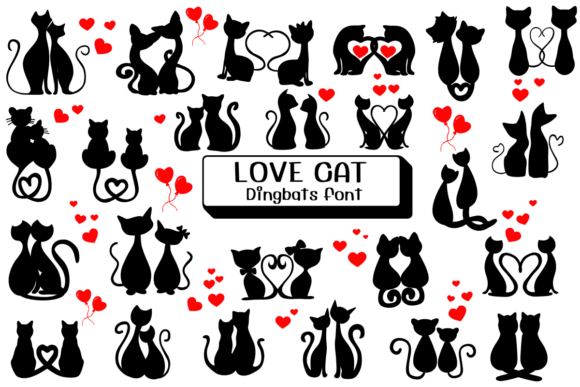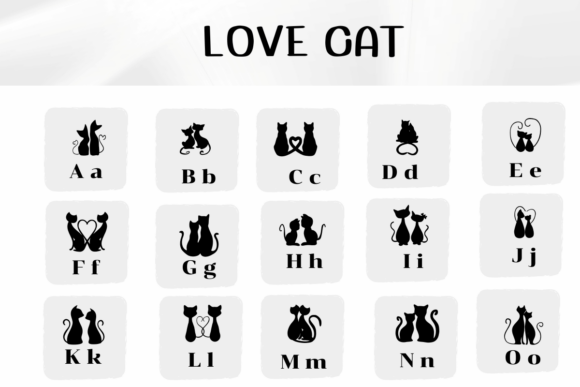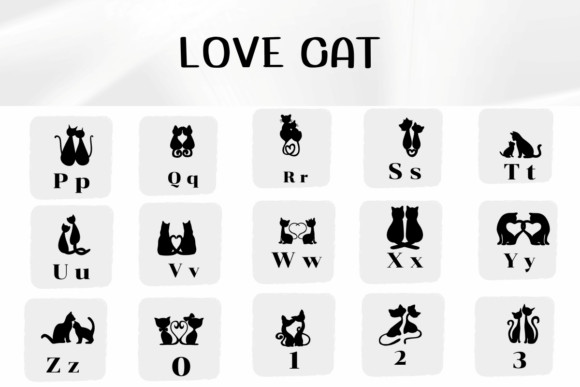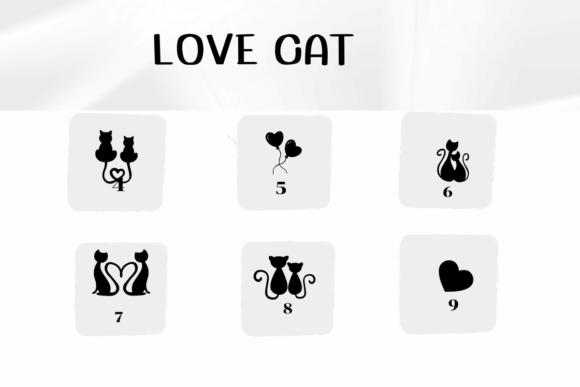
Love Cat Font: Cute Valentine’s Dingbats for Cricut & DIY Crafts
About the Love Cat Font
Unleash your creativity with Love Cat Font, a versatile font perfect for a wide range of applications. Love Cat is a cute dingbat font featuring adorable Valentine’s Day cat couples. The font includes sweet and playful designs of cats in love, perfect for adding charm to your romantic projects.
Love Cat excels in projects requiring a lighthearted and charming touch, such as Valentine’s Day cards, invitations, social media graphics, or children’s book illustrations. Its playful nature makes it ideal for branding projects targeting a young, feminine demographic or businesses focused on pet-related products. However, it’s not suitable for large amounts of body text or applications requiring high readability, such as website copy or long-form documents.
Pairing Love Cat with a clean sans-serif font like Helvetica Neue for body text creates a strong contrast and enhances readability. Alternatively, a simple serif font like Garamond could provide a more classic and sophisticated counterpoint. For a more playful combination, consider pairing it with a rounded sans-serif like Bubblegum Sans.
The overall personality of Love Cat is undeniably playful and sweet, making it an excellent choice for projects emphasizing fun, romance, and lightheartedness. Its inherent cuteness, however, should be considered when selecting applications to ensure it aligns with the overall brand identity.
Love Cat Font Usage Examples
Love Cat Font Example